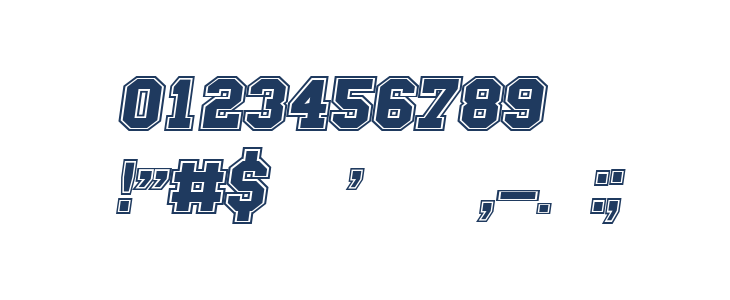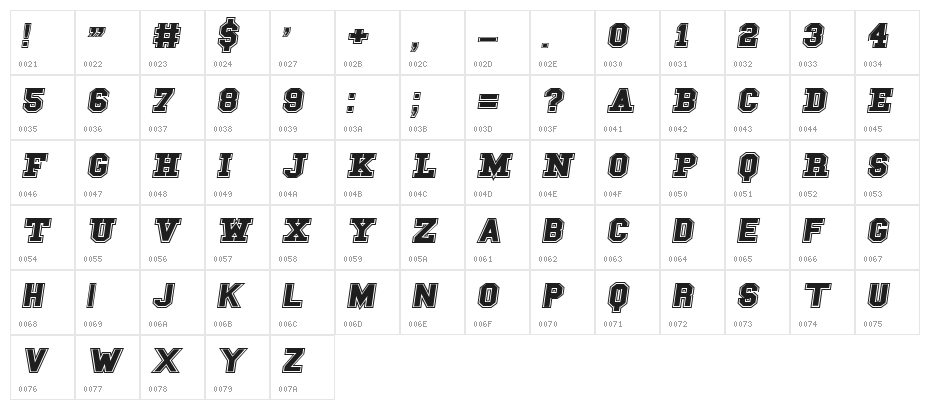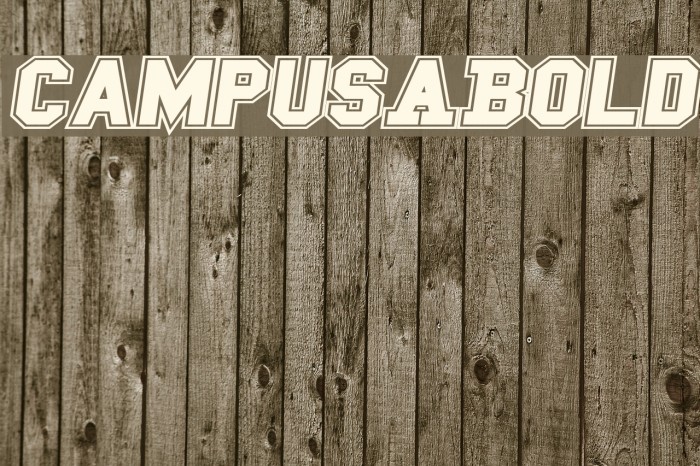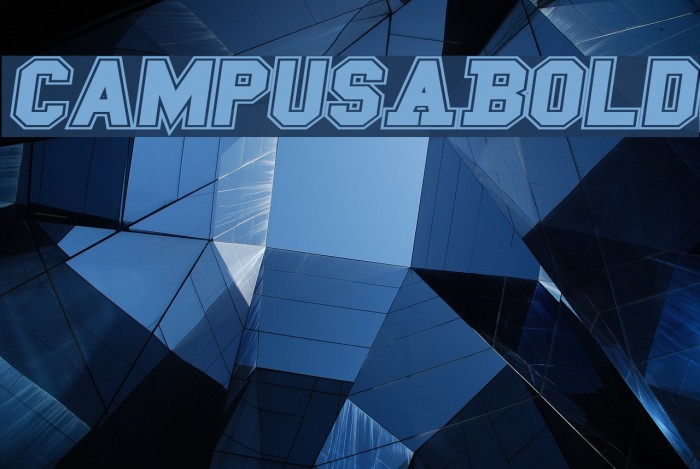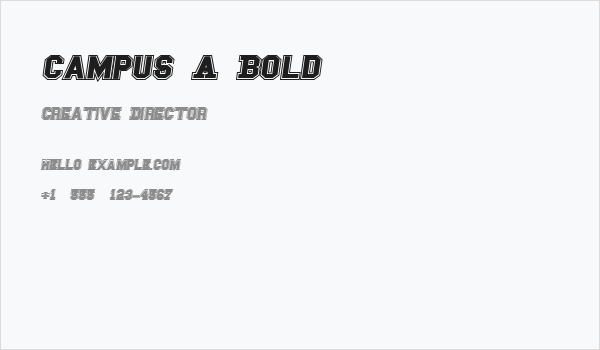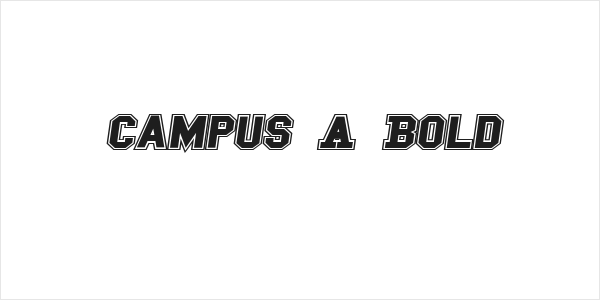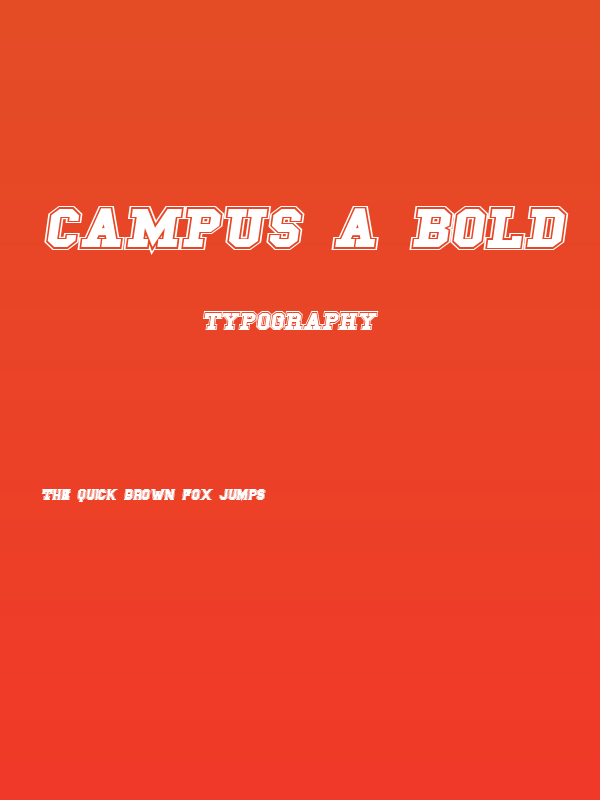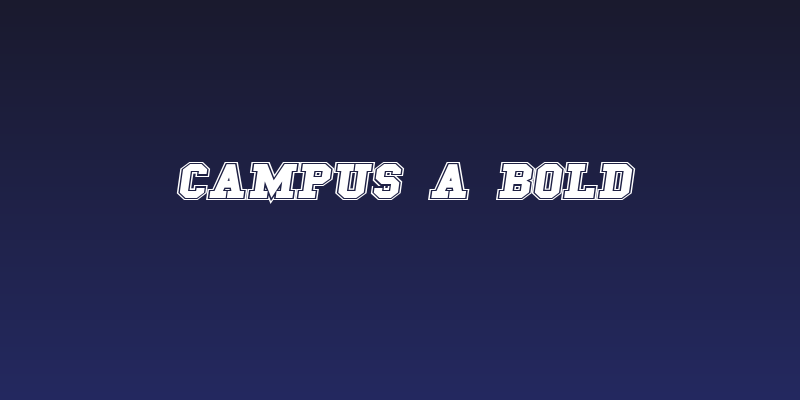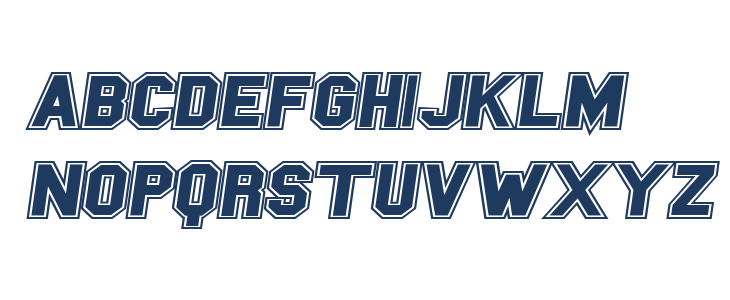
Campus A Bold Font
Campus A Bold Description
This font features bold, block-style letters with a distinct three-dimensional effect. The characters are outlined with a thick black border, giving them a strong, impactful presence. The interior of each letter is filled with a solid color, enhancing the boldness and making the text stand out. The design is reminiscent of collegiate or varsity lettering, often seen in sports team logos and apparel. The numbers and special characters maintain the same bold style, ensuring consistency across all elements. This font is ideal for creating eye-catching headlines or titles that require a strong visual impact.